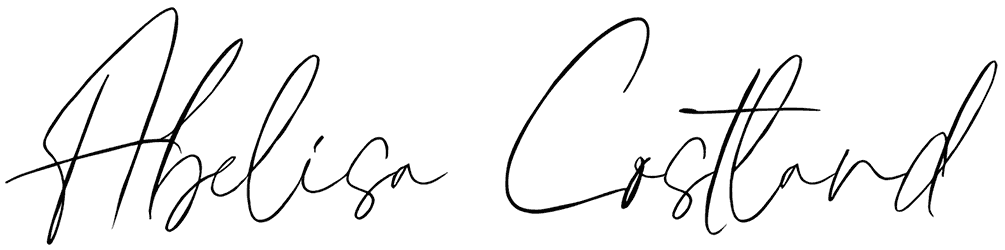
Abelisa Costland Font
There’s nothing better than Abelisa Costland to set the mood of your writing and evoke your audience’s emotions. This signature font has completely natural connections that make it challenging for you to read like the handwriting of an adult.
But this feature can create a professional mode that creates an utterly personal atmosphere and will help shape your ideas. Packaging, wedding cards, informal invitations, and any other individual design can be a place for this fast handwritten font to stand out.